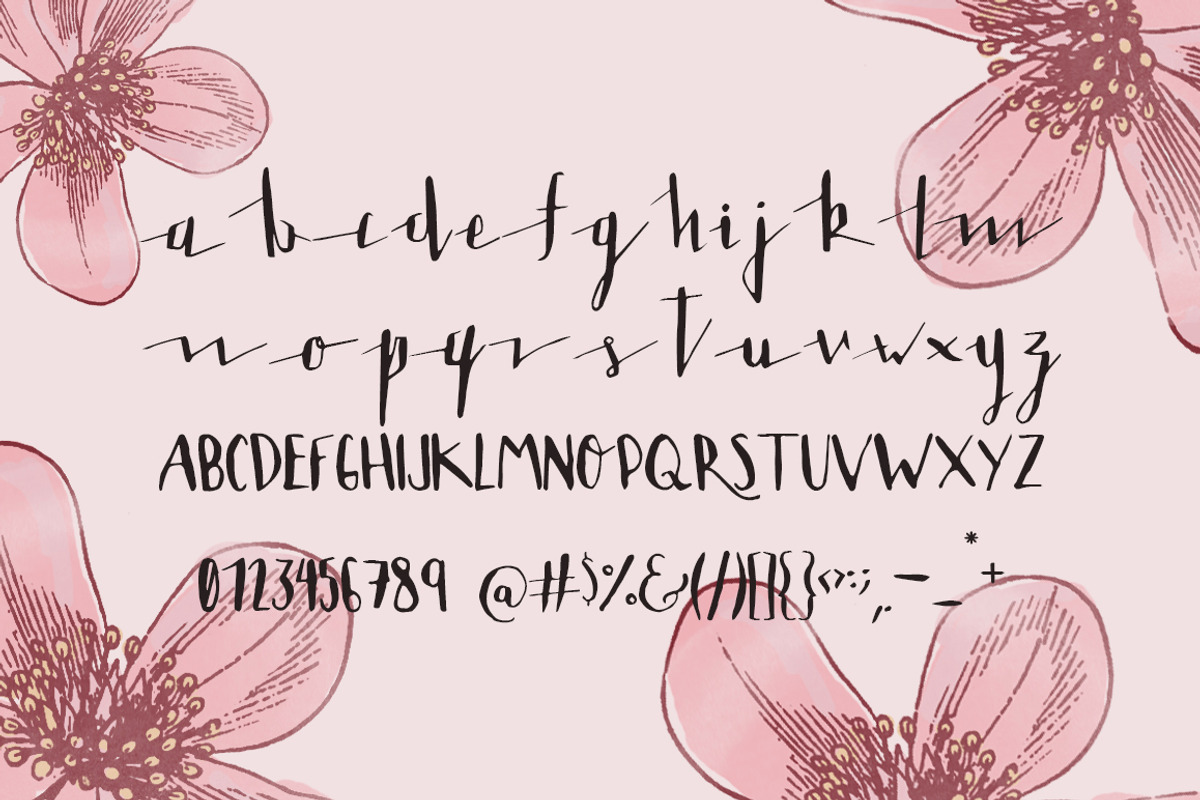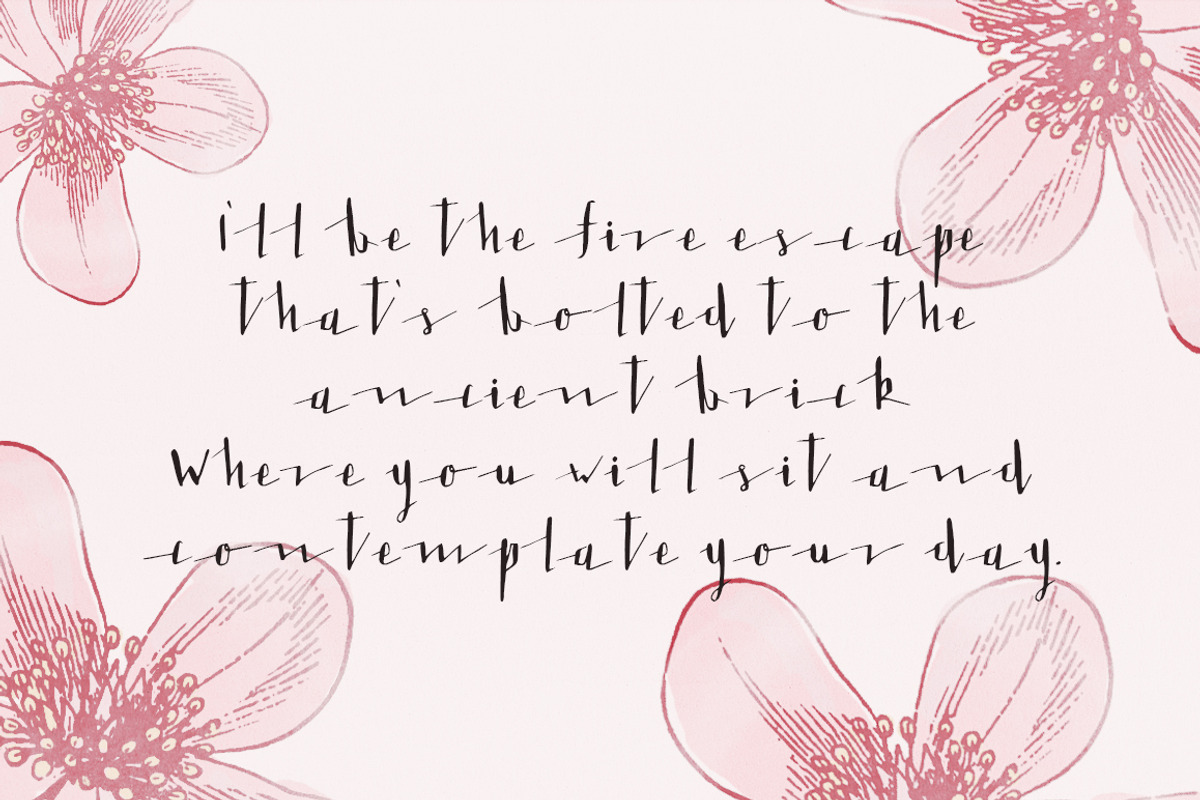
Love Letter Font
Love Letter Font by Noe Araujo is a font selected for branding, posters, packaging, typography.
Why Love Letter Font is worth a look
Love Letter Font by Noe Araujo fits naturally into Branding, posters, packaging, typography.